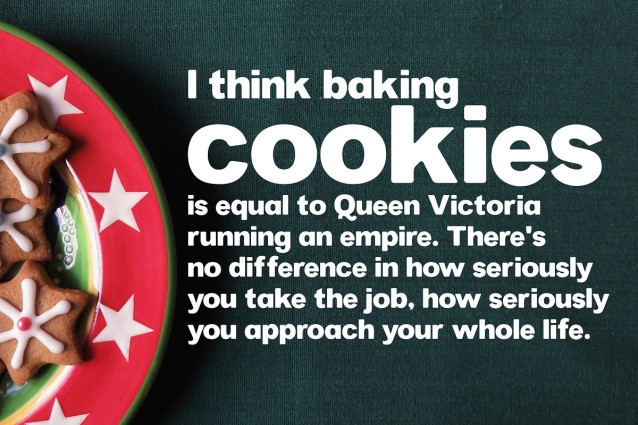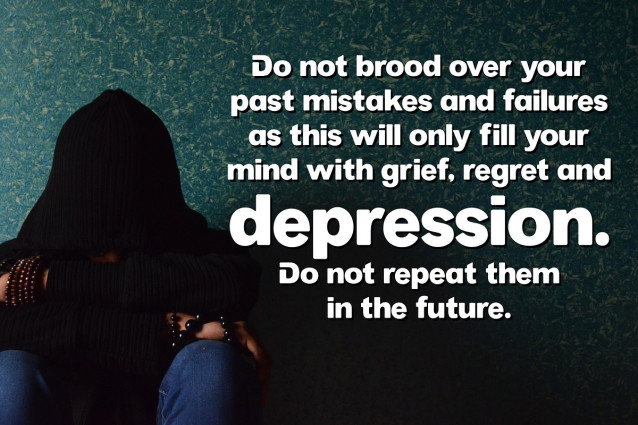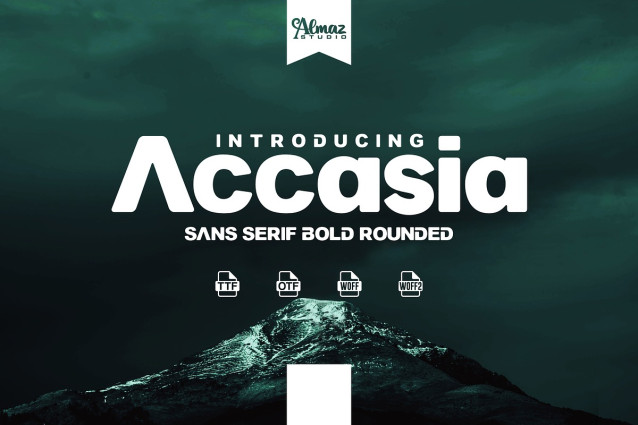
Accasia Font
Accasia Font is an elegant sans serif font with a beautiful contrast. Made from font designer named Almaz Studio™. It’s a contemporary sans serif typeface. The font family comes in Regular and Bold weights, with support of Latin and Cyrillic alphabet. This font is perfect for your design needs such as layout designs, apparel, magazines, posters, logos, branding, and others.